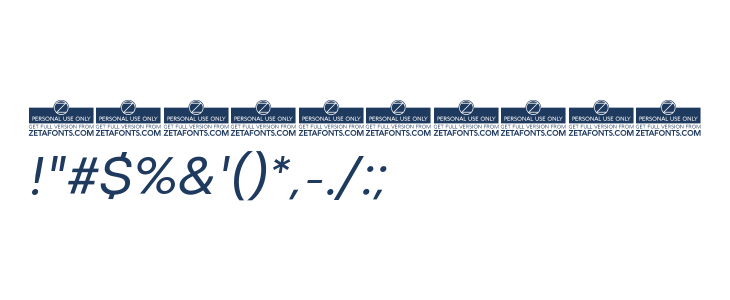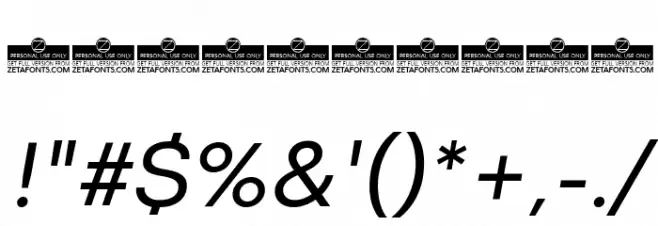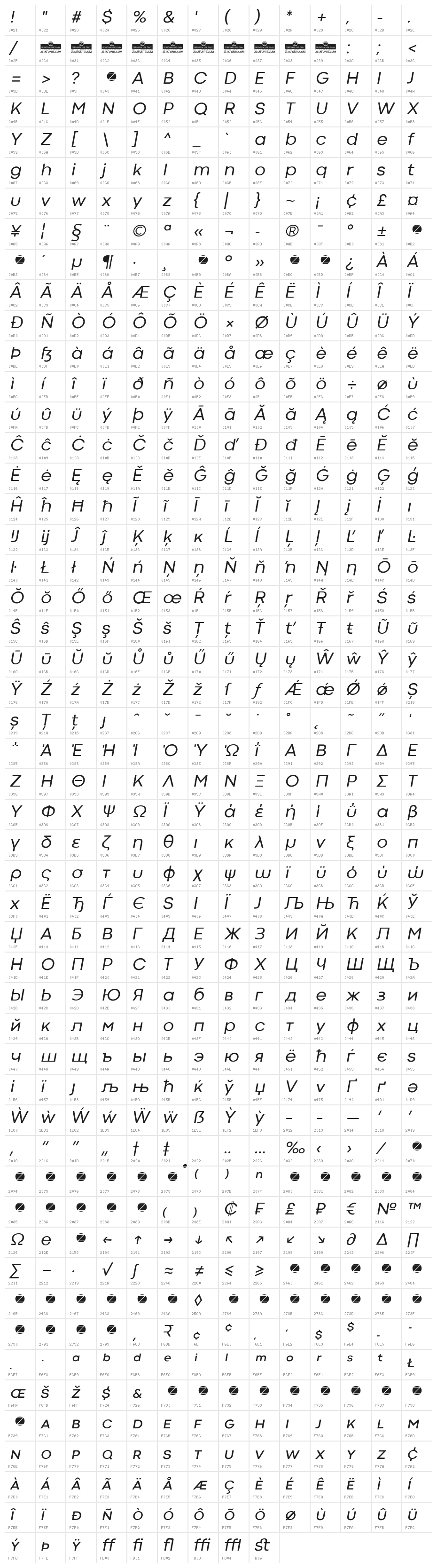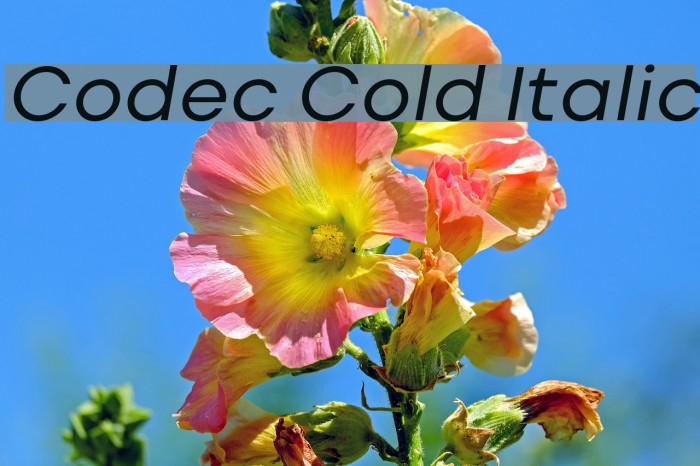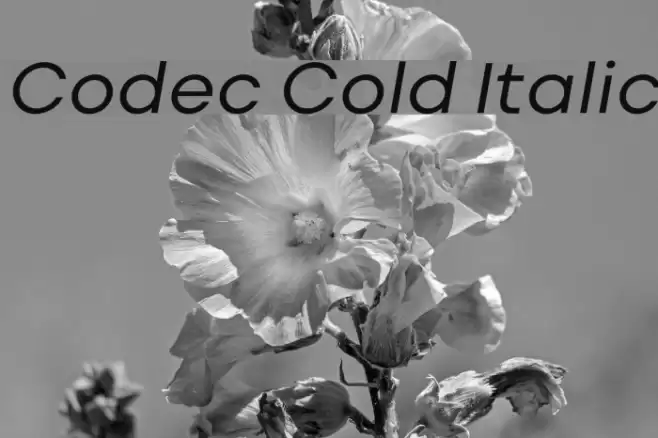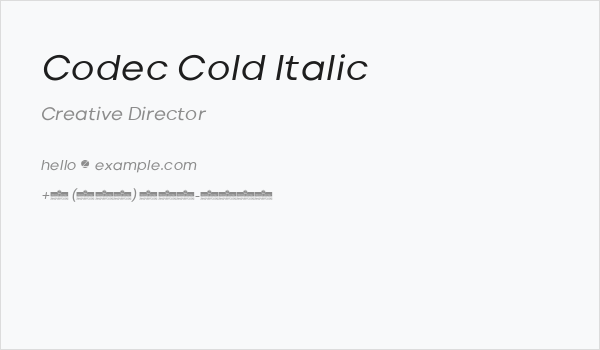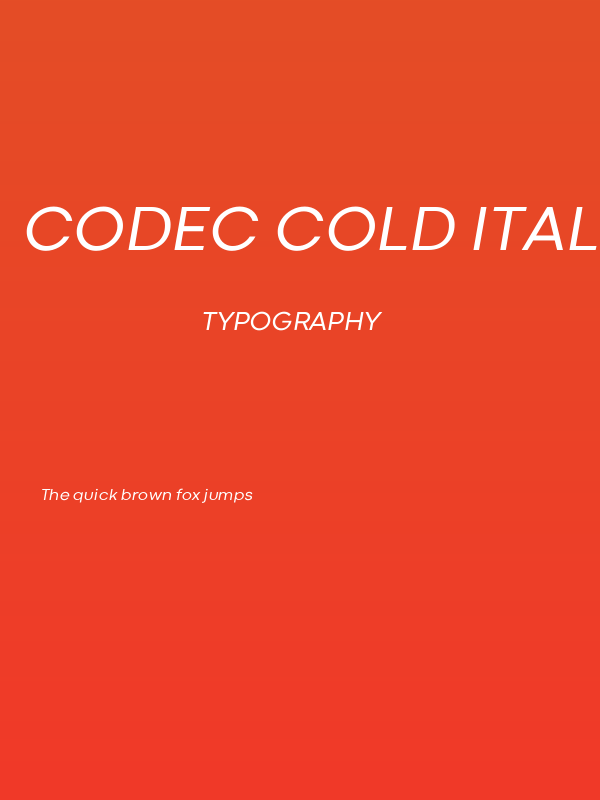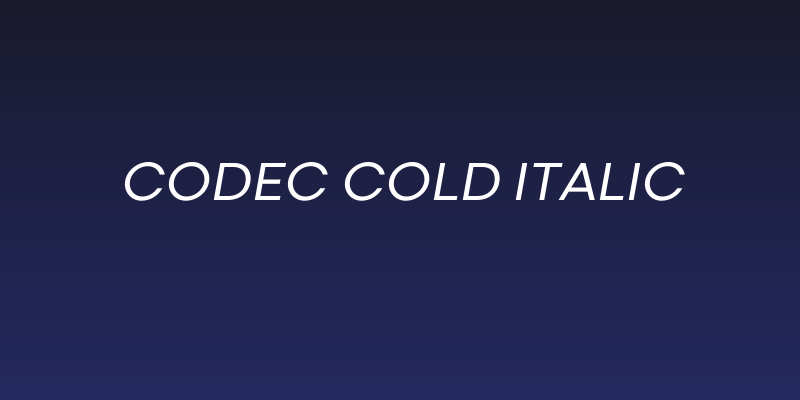
Codec Cold Italic Font
Codec Cold Italic Description
This font exhibits a sleek and contemporary design with a distinct italic slant, giving it a dynamic and forward-moving appearance. The characters are crafted with a clean, sans-serif style, emphasizing simplicity and readability. The uniform stroke width across all characters contributes to a harmonious and balanced look, making it suitable for modern applications. The font's design is minimalistic yet elegant, with a slight curvature in certain letters that adds a touch of sophistication. It maintains a consistent baseline and x-height, ensuring clarity and legibility across different sizes.
| Proposed Projects | Ideal for branding, advertising, and digital interfaces where a modern and professional look is desired. |